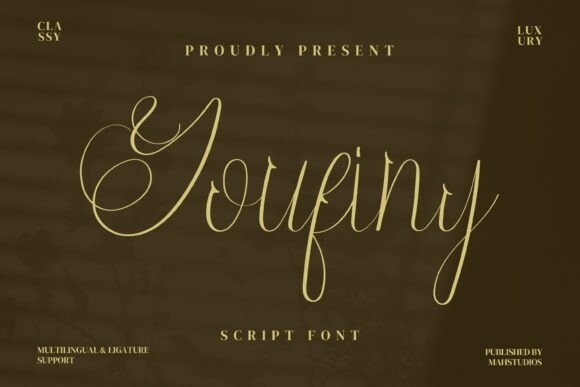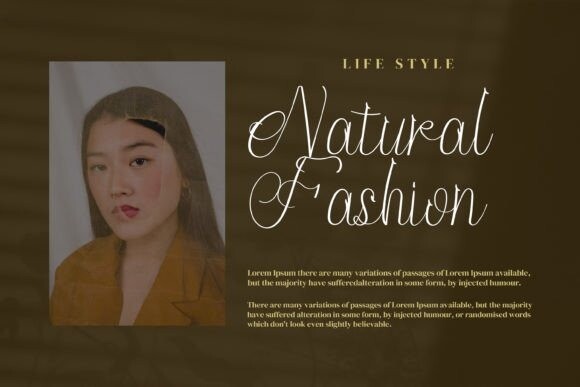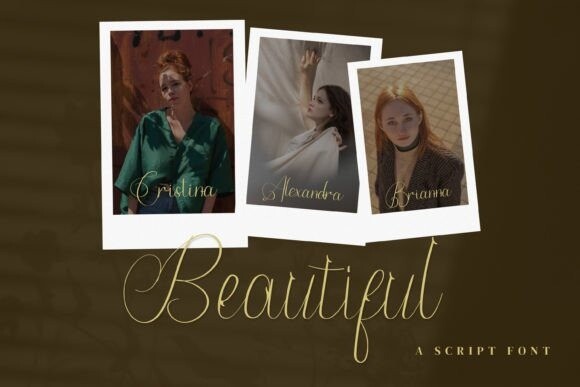
Youfiny Font
Indulge in the beauty of this exquisite and appealing handwritten font. Youfiny’s elegant curves, unique character, and charming personality, also add a personal touch to your designs, making them stand out and attract attention. Keep in mind that the font is PUA encoded, meaning that you can access all delightful glyphs and swashes effortlessly.